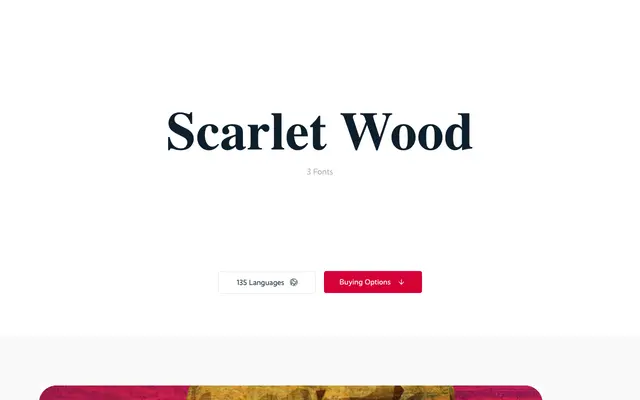
Scarlet Wood
A three-style stamped display family by Jürgen Huber, derived from the broader Scarlet family with a worn, pressed texture throughout.
Scarlet Wood applies a stamped treatment to the Scarlet family, producing three styles across upright and script cuts in Medium, Bold and Black weights. The 620-glyph set includes small caps, old style figures and ligatures via OpenType, with coverage for Western, Central and Eastern European languages across 135 language variants. The stamped texture gives it a distinctly tactile, craft-print quality suited to packaging, branding and editorial display work.
Scarlet Wood is described as a stamped version of the Scarlet family, giving it a textured, wood-stamp character that places it firmly in the display category rather than a standard serif or script classification.